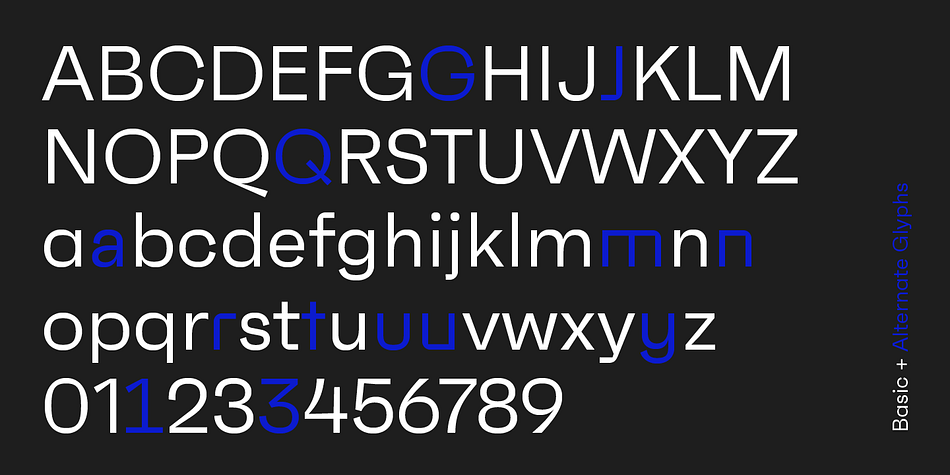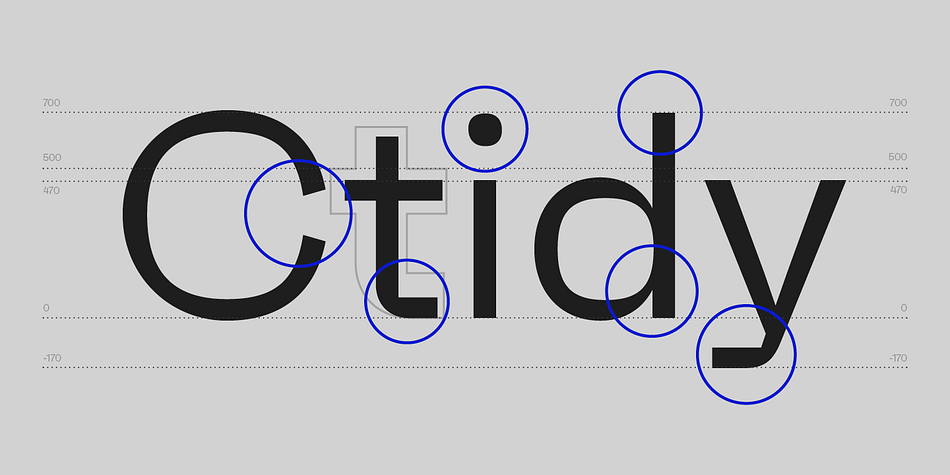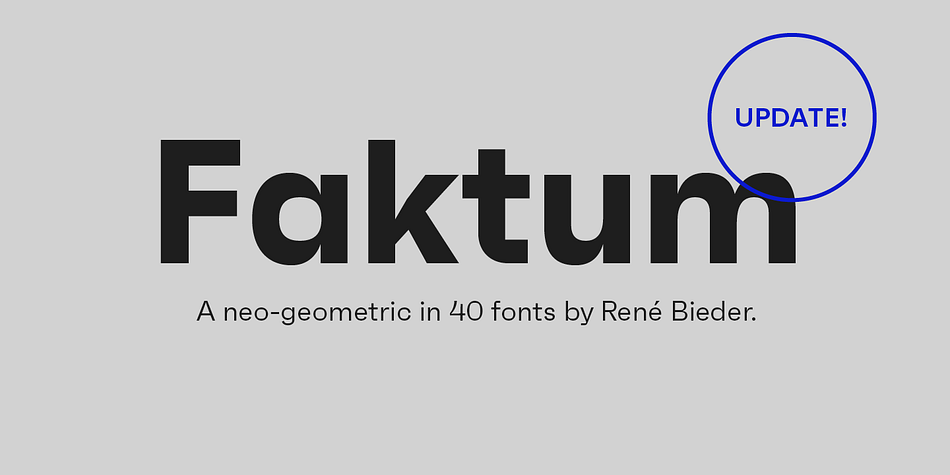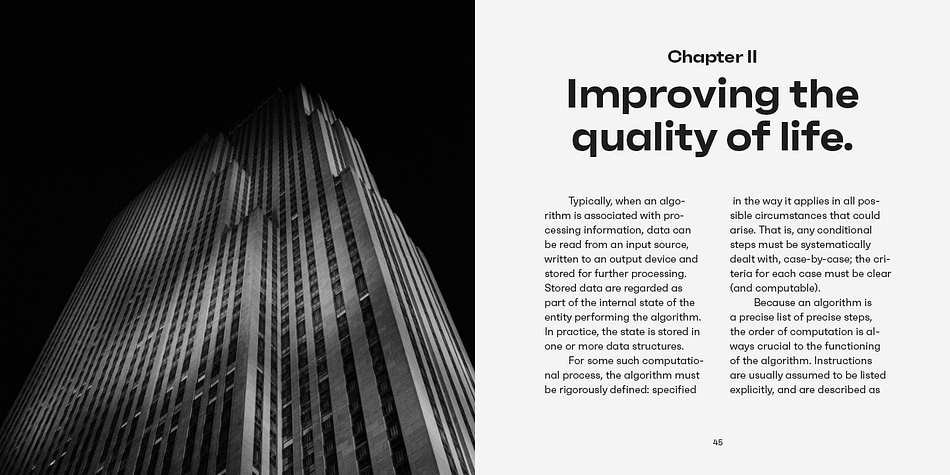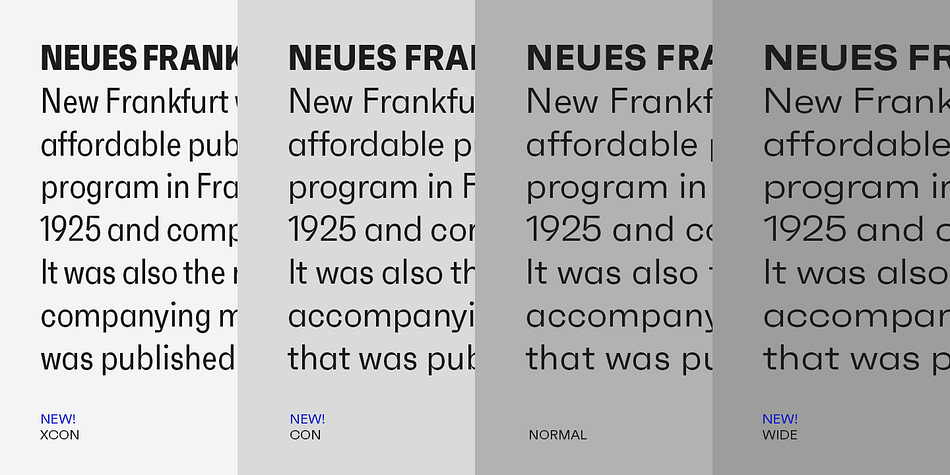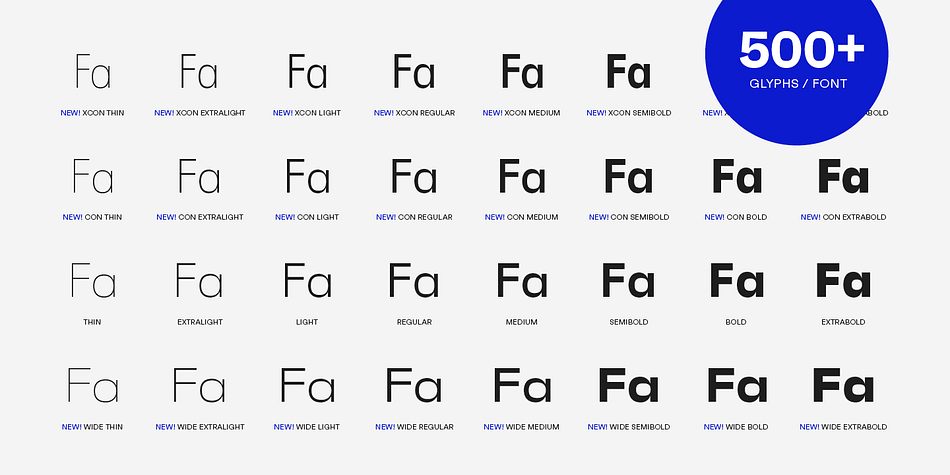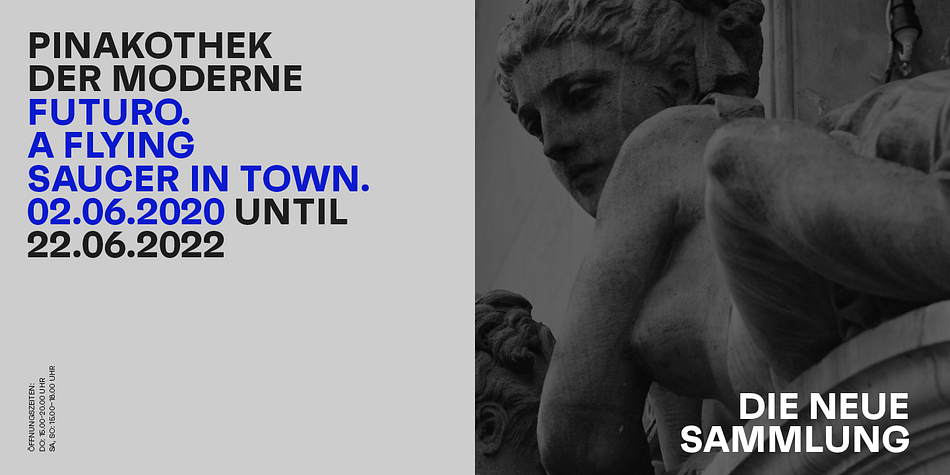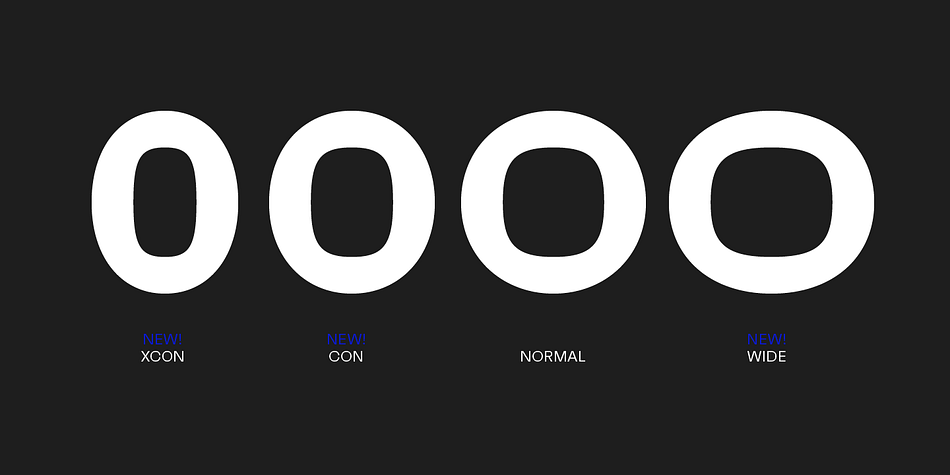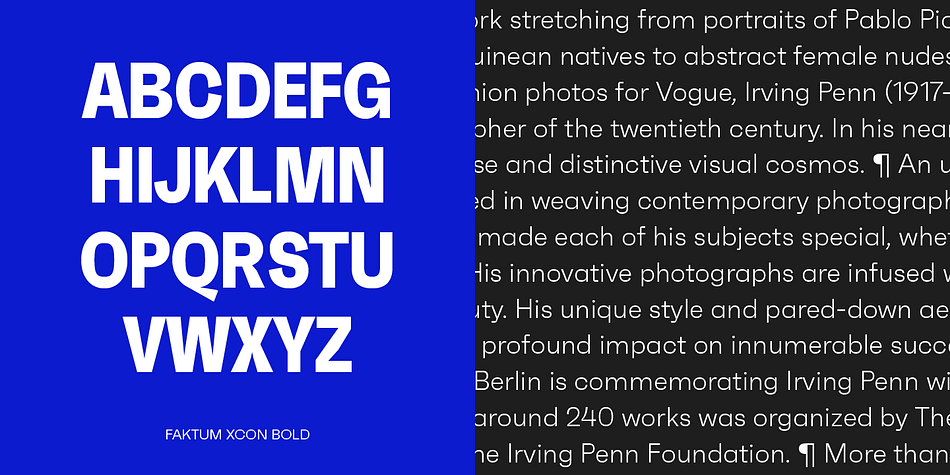
Designed by René Bieder, Faktum is a sans serif font family. This typeface has forty styles and was published by René Bieder.
Faktum is an exploration into the geometric sans genre, inspired by Mid-Century Modern architecture and interior design. Especially the combination of clear lines, organic curves and geometric shapes, highly popular among designers and architects of the second third of the 20th century, gave the impetus for a design with clear modernist roots and a strong contemporary finish.
The family comes in 8 weights plus matching italics, featuring a wide range of alternate characters and opentype features like discretionary ligatures, case sensitive shapes, different number sets and many more. Due to its clean lines and slightly organic structure, Faktum functions great in many sizes and surroundings, working either as a restrained supporting font in long paragraphs, or as a main actor in powerful headlines.